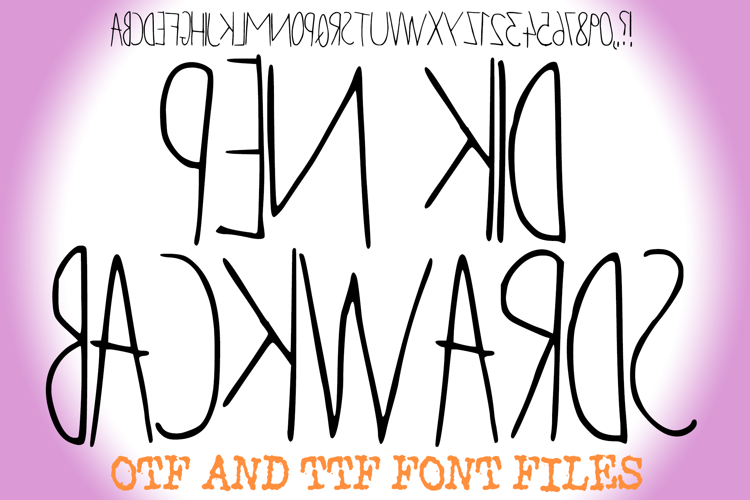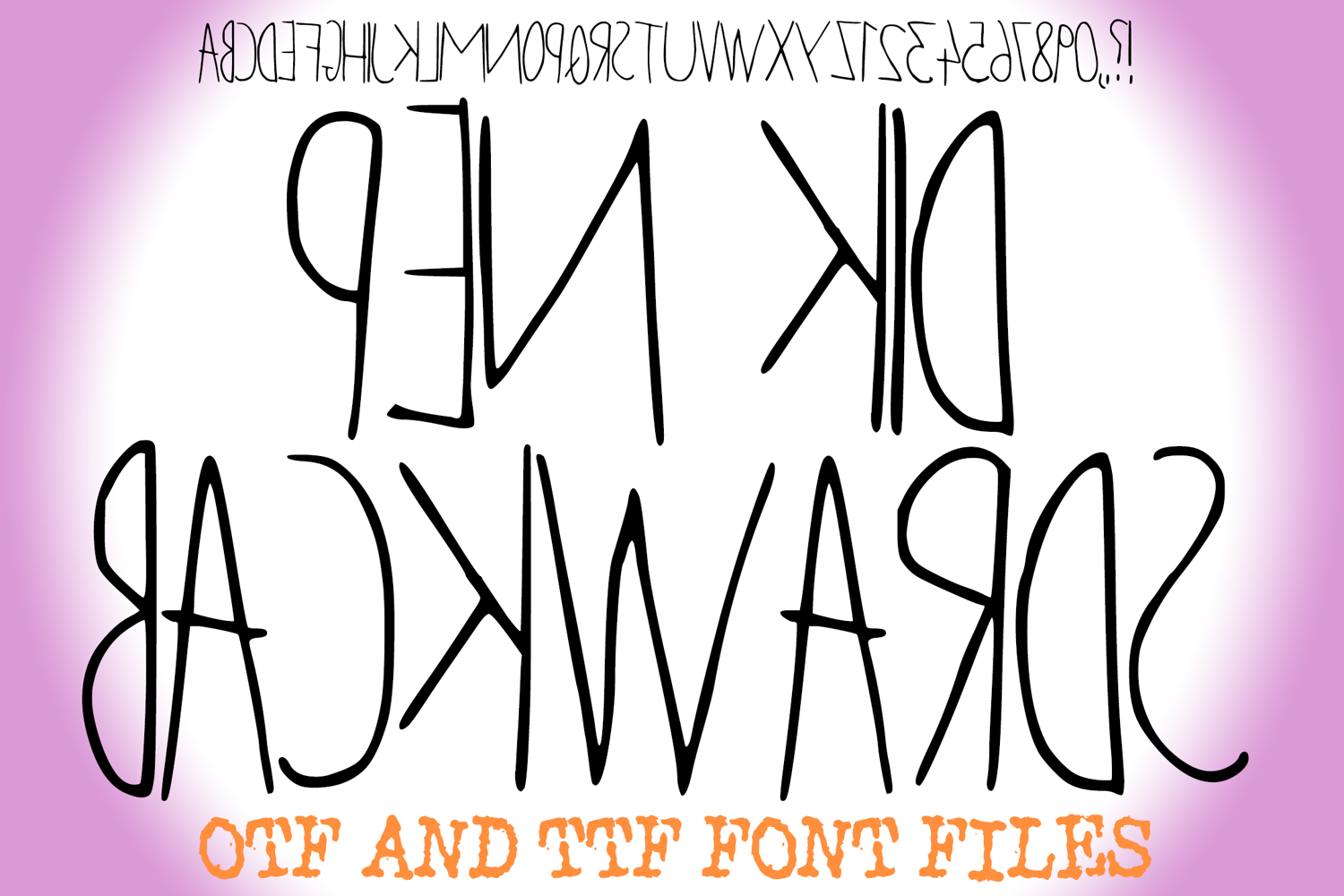
Pen Kid Backwards Handwriting Alphabet Lettering ABC Text
Turn expectations on their head and inject a whimsical twist into your designs with Pen Kid Backwards Font! This wonderfully unconventional typeface is meticulously crafted to mimic a child's enthusiastic handwriting, but with each character playfully flipped as if seen in a mirror. It's more than just a font; it's an intriguing optical illusion and a delightful puzzle, perfect for projects that demand a second glance and a memorable, quirky flair.
Each letter in Pen Kid Backwards Font retains its fundamental, hand-drawn shape but is horizontally reversed, creating a fascinating challenge for the eye while offering a truly distinctive visual style. Ideal for crafting unique branding that stands out, creative challenges, escape room designs, children's activities (like learning to read backward!), or any project that aims to surprise, entertain, and engage with a clever twist.
Whether you're creating abstract art, designing puzzles, adding a quirky touch to social media, or seeking a truly original display for headlines, this font delivers with unparalleled style. Its clear yet reversed forms ensure that, with a little thought (or a mirror!), your message remains legible while making an unforgettable statement.
If you're looking to infuse your designs with a sense of playful intrigue, clever originality, and an undeniable "wow" factor, Pen Kid Backwards Font is your ultimate tool. Flip your creativity and watch it shine!